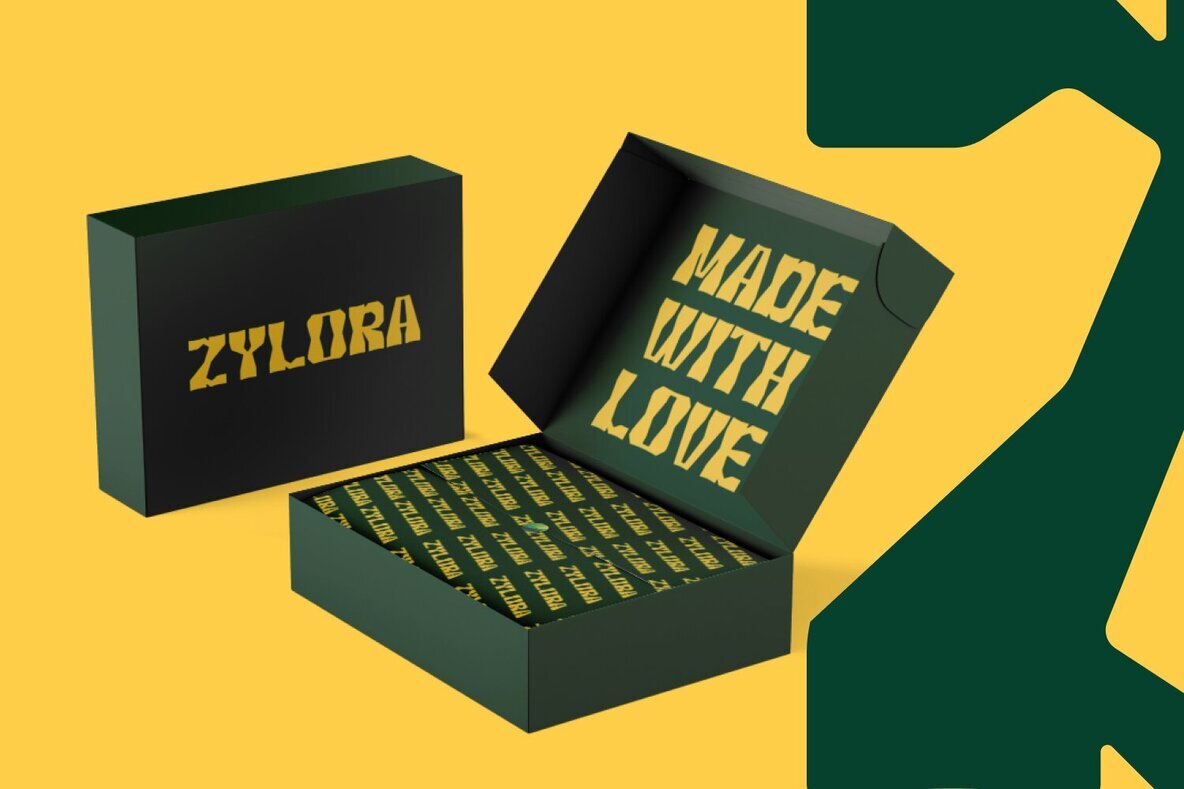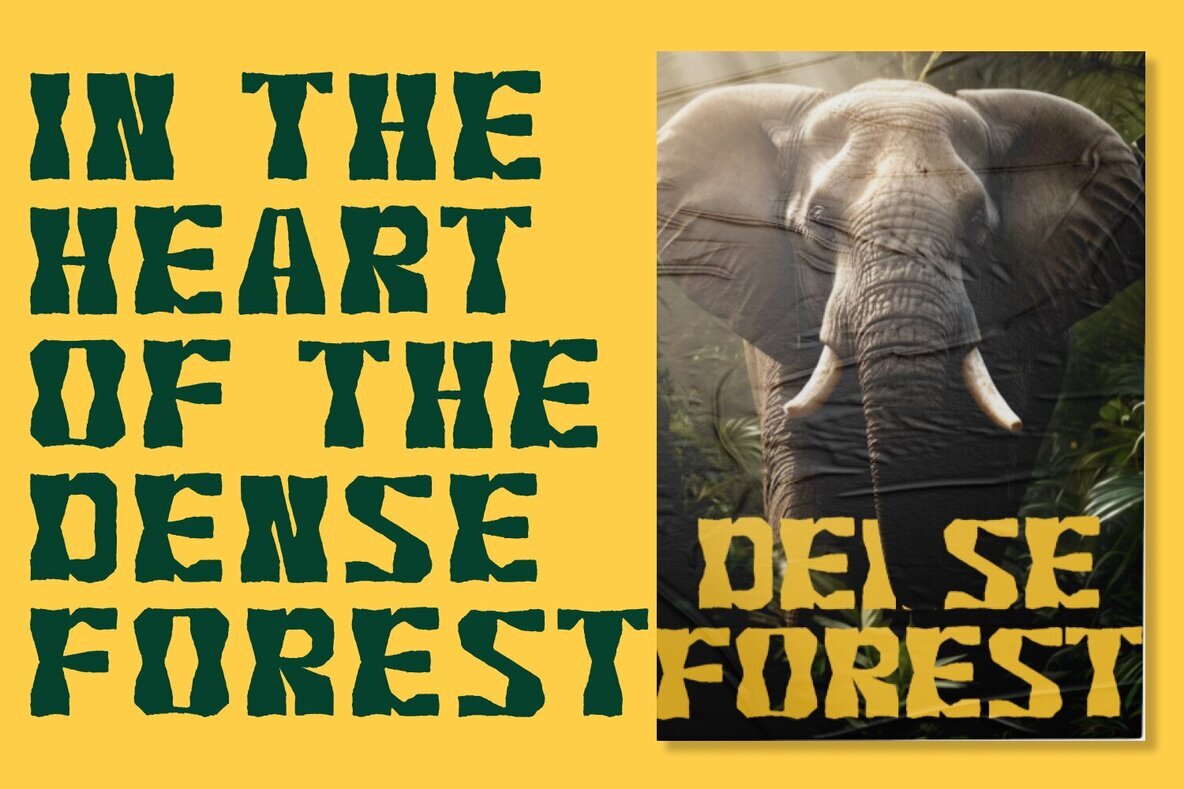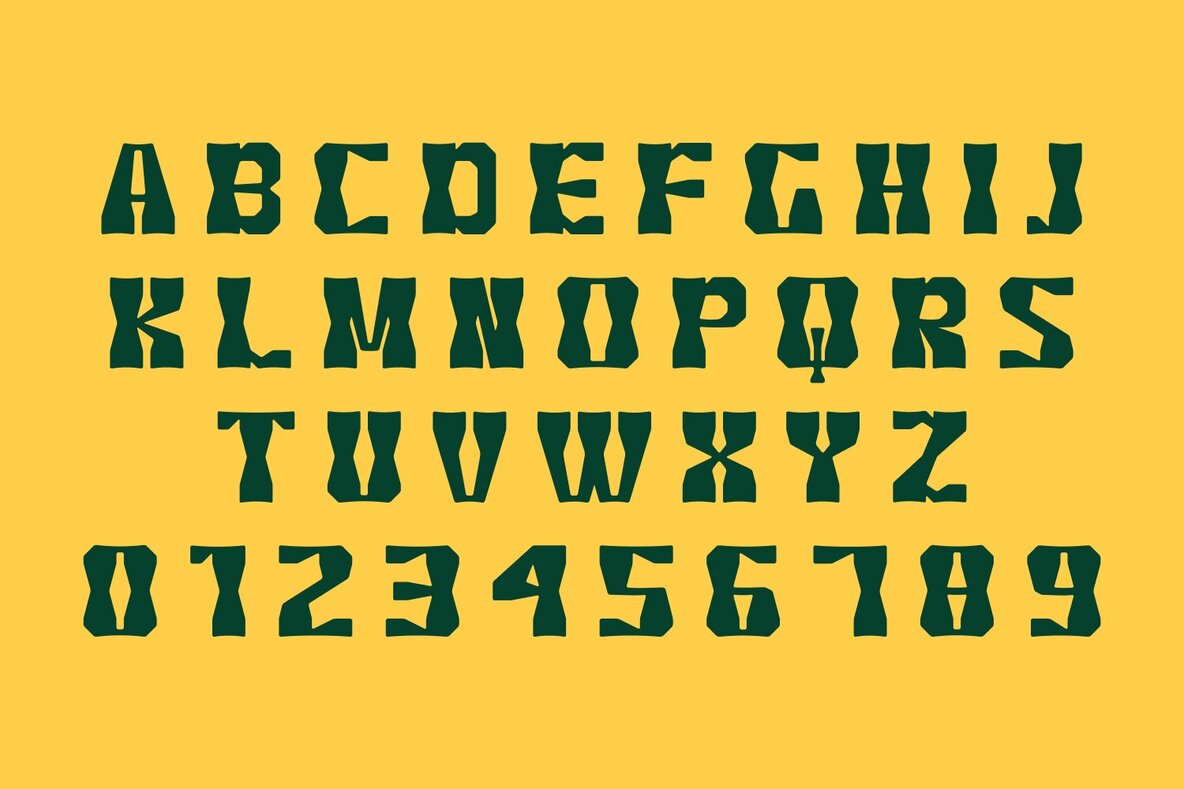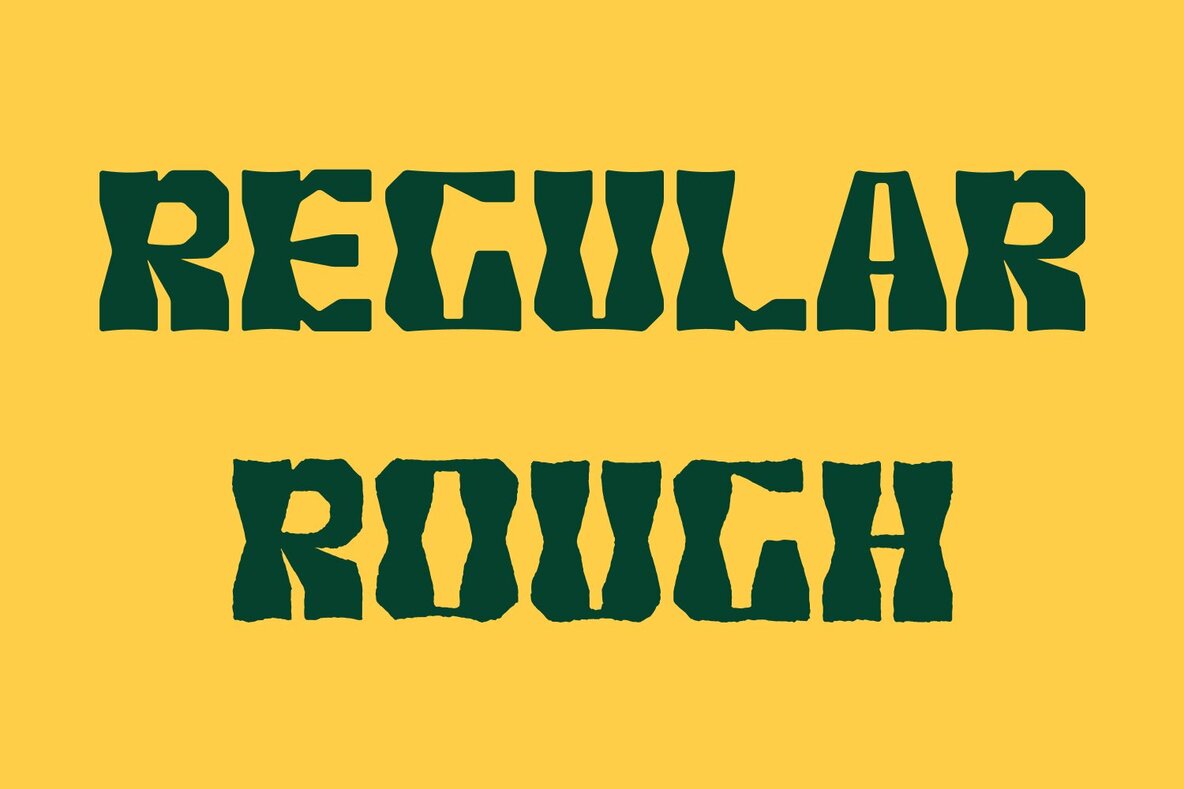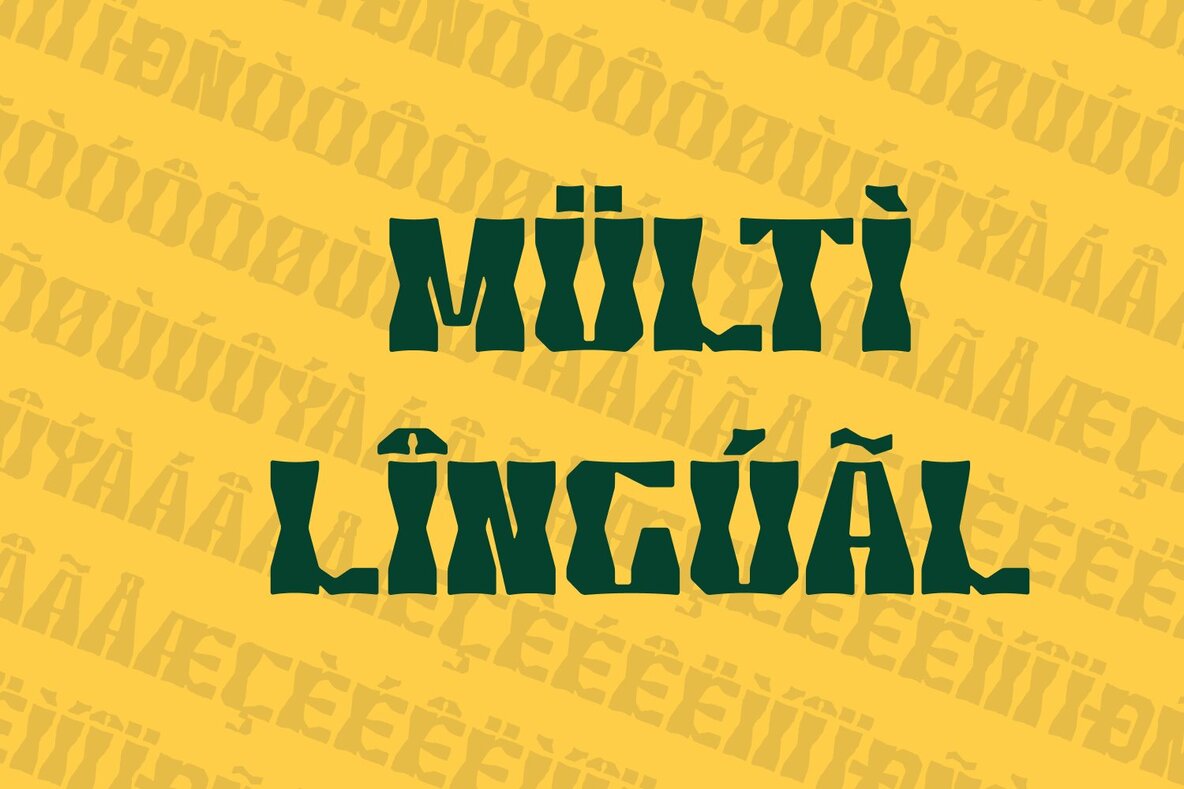
Roxom Font
Roxom is a bold and distinctive typeface crafted to make a statement with its regular, rough style. Combining strong uppercase lettering with a touch of ruggedness, it is perfect for creating impactful headlines and striking designs. This font's unique texture and commanding forms are designed to catch the eye, making it ideal for memorable brand identities and eye-catching graphics.
Adding to its versatility, Roxom offers multilingual support, ensuring it is accessible and effective across various languages. Whether you're designing for print or digital, this font delivers a powerful presence that enhances the visual appeal of your projects. Use Roxom to infuse your creations with an authoritative and dynamic edge.